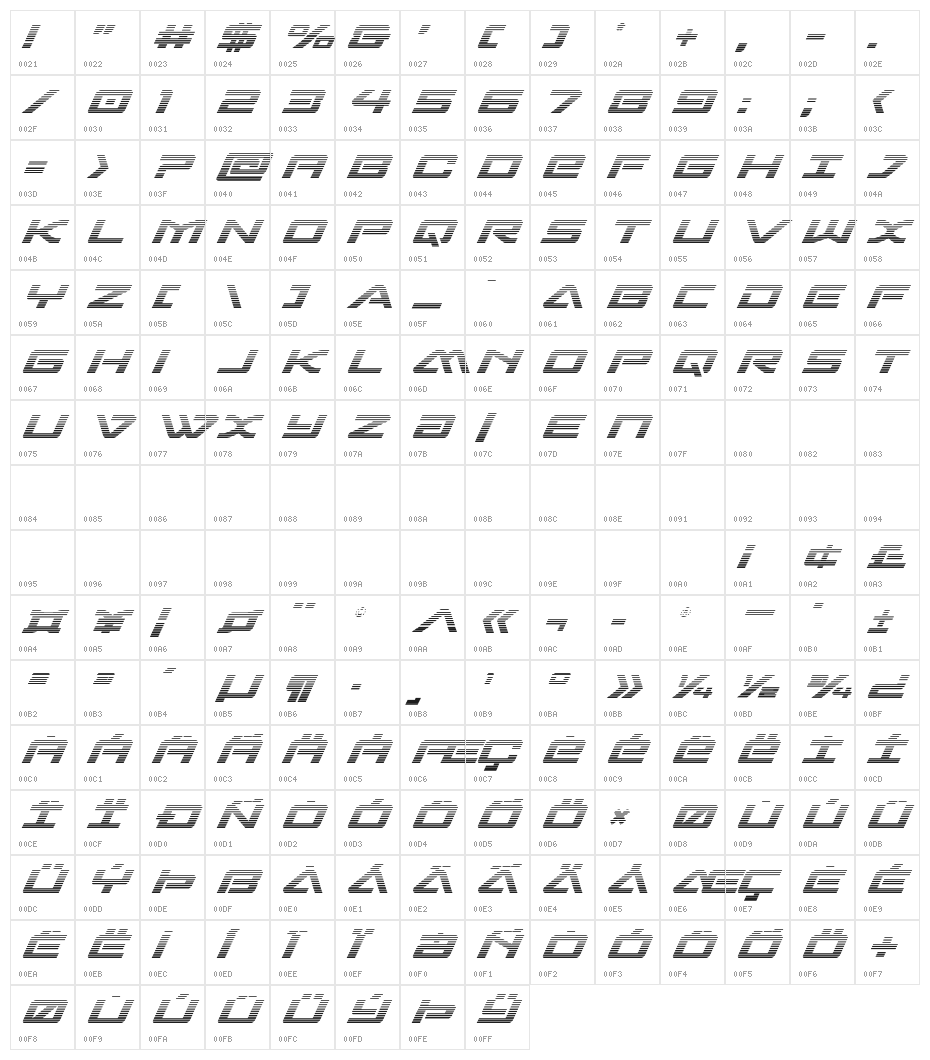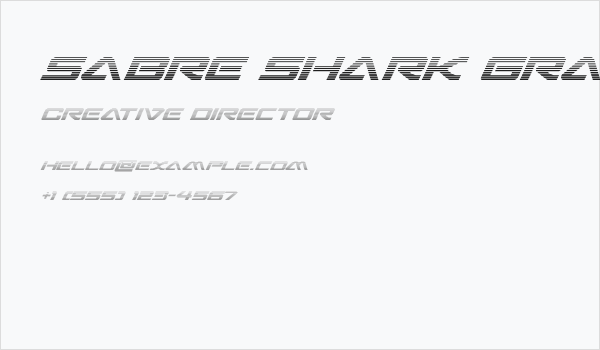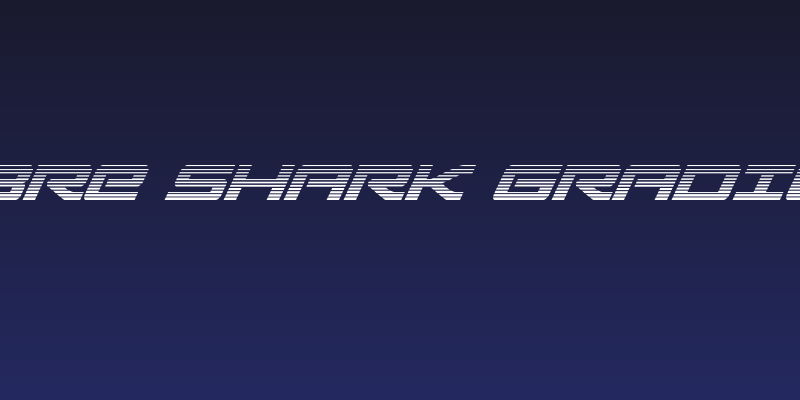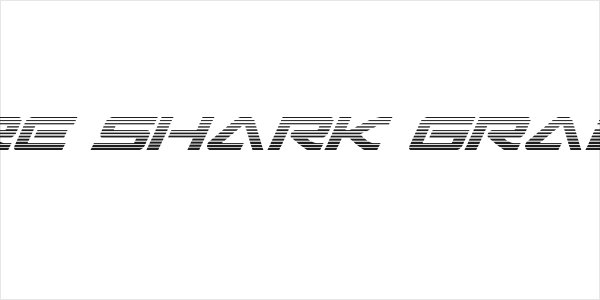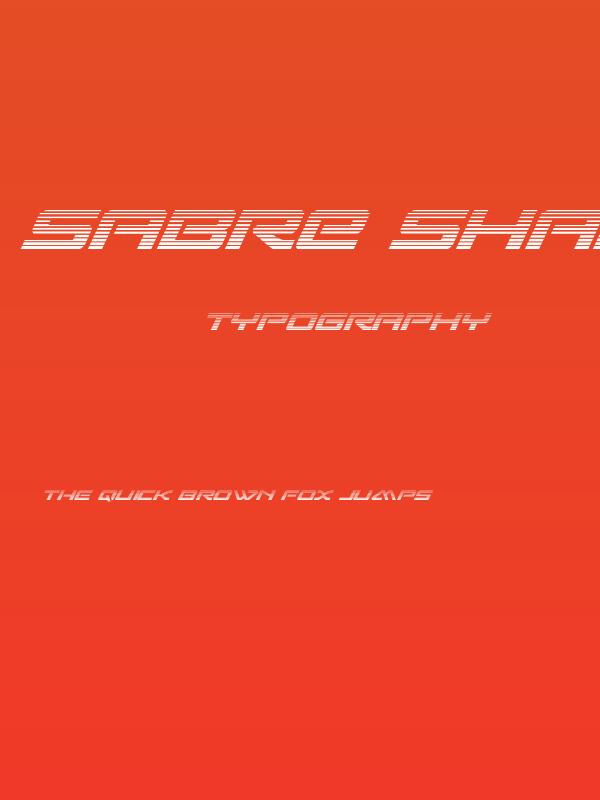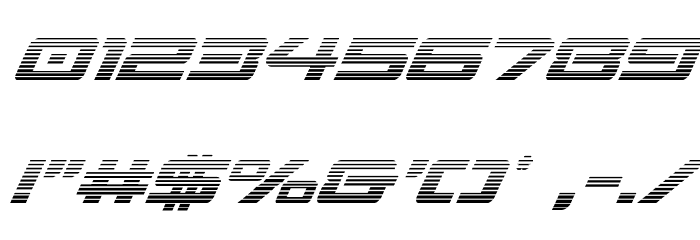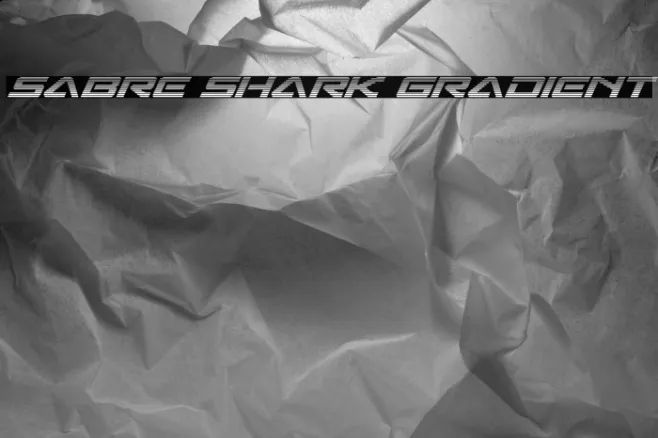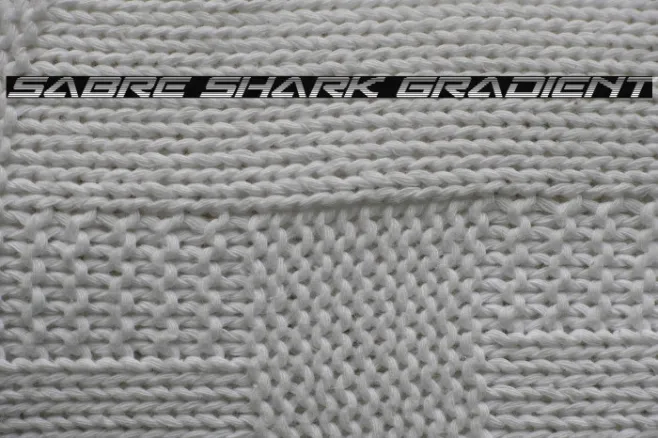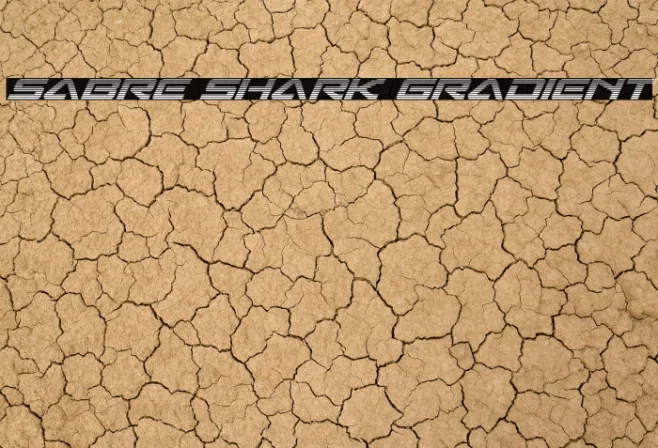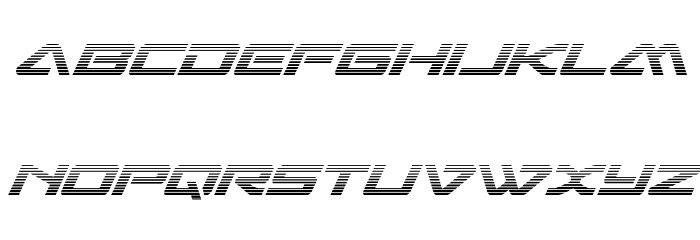
Sabre Shark Gradient Font
Sabre Shark Gradient Description
This font features a futuristic and dynamic design, characterized by its bold, angular shapes and horizontal line patterns that create a sense of movement and speed. The uppercase and lowercase letters maintain a consistent style, with sharp edges and a slightly condensed form. The numerals and special characters follow the same design principles, ensuring uniformity across all glyphs. The font's unique aesthetic makes it stand out, ideal for projects that require a modern and edgy look. Its distinctive line pattern adds depth and texture, making it suitable for eye-catching headlines and logos.